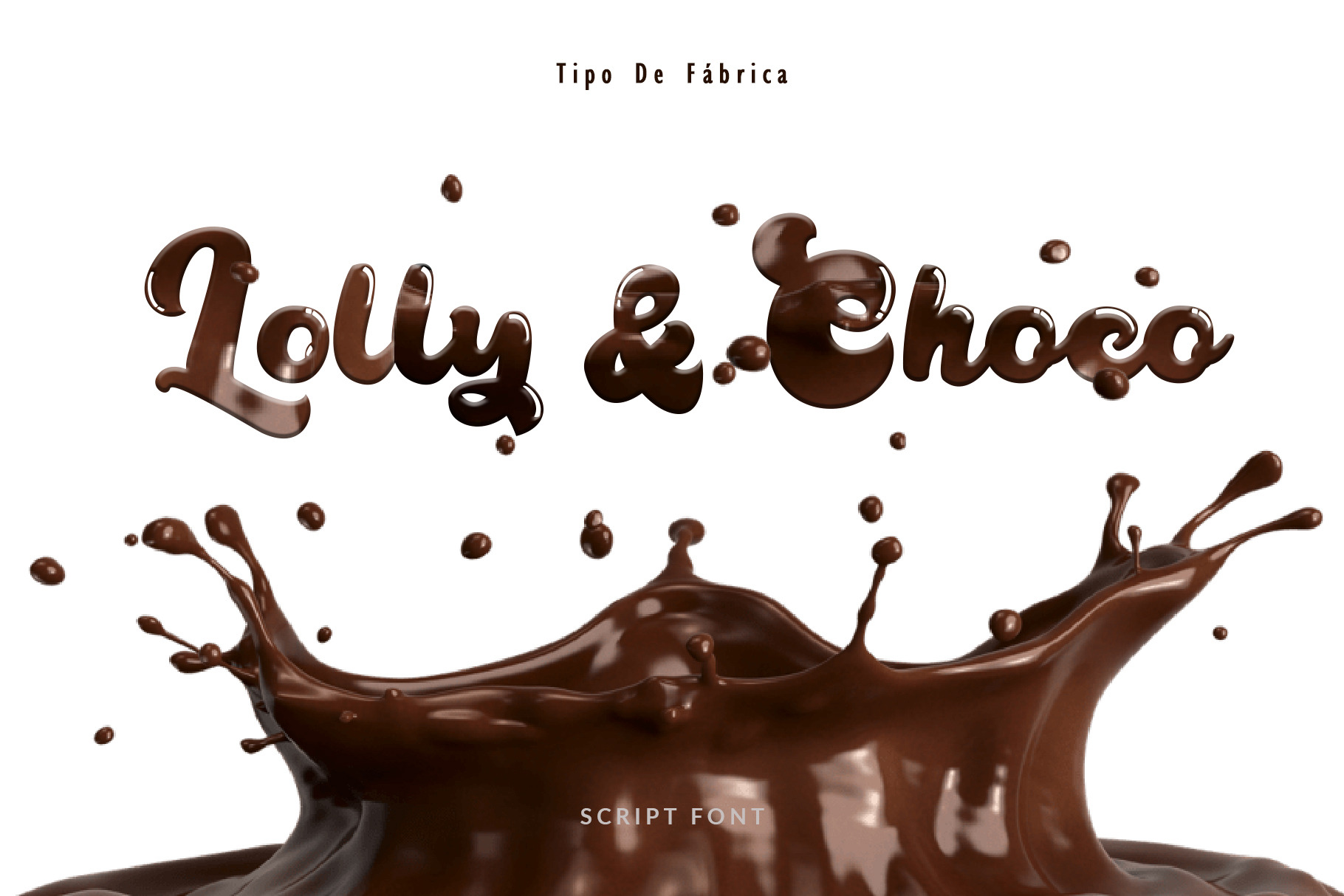
Lolly and Choco Script Font
Lolly and Choco Script Font is a Chocolate and delicious script style font for food, chocolate, ice cream, candy, and cakes industry. You could play around to make a stylisting font with the alternate in the glyph area like the preview.
Lolly and Choco Script Font also includes full set of uppercase and lowercase letters, multilingual symbols, numerals, punctuation.